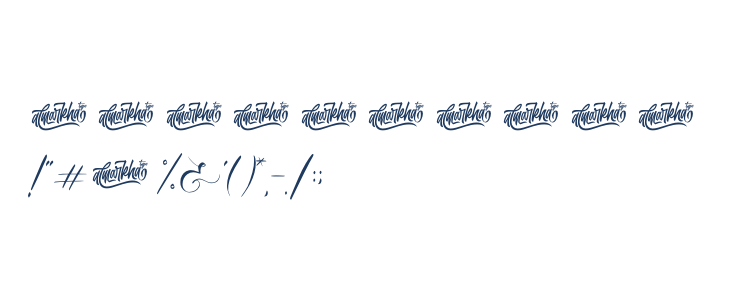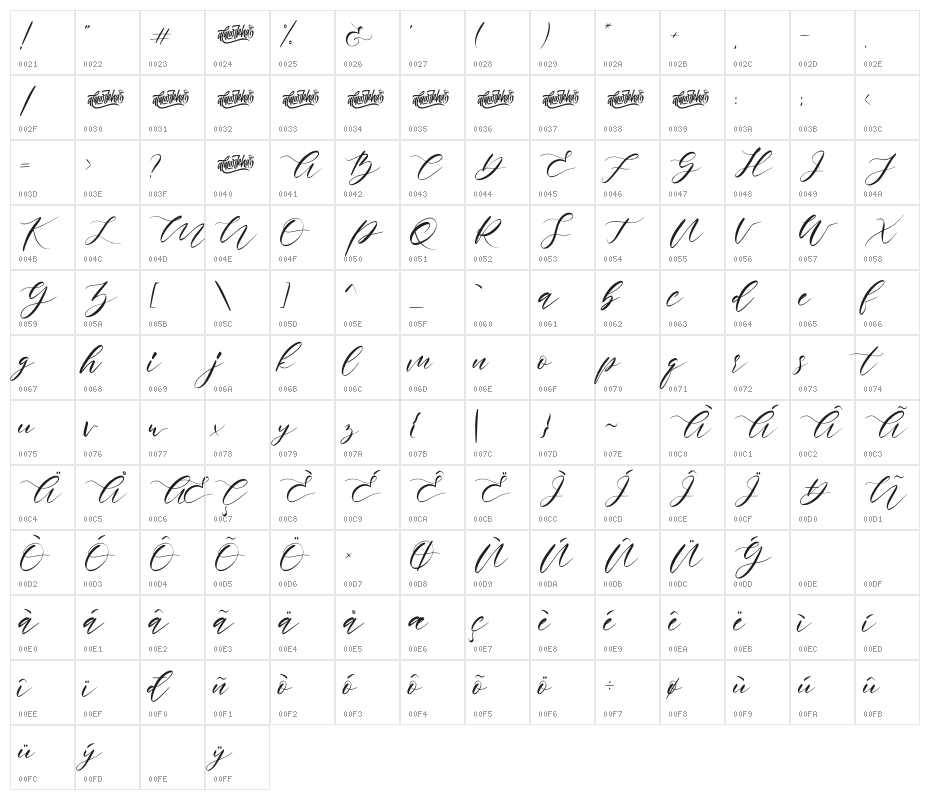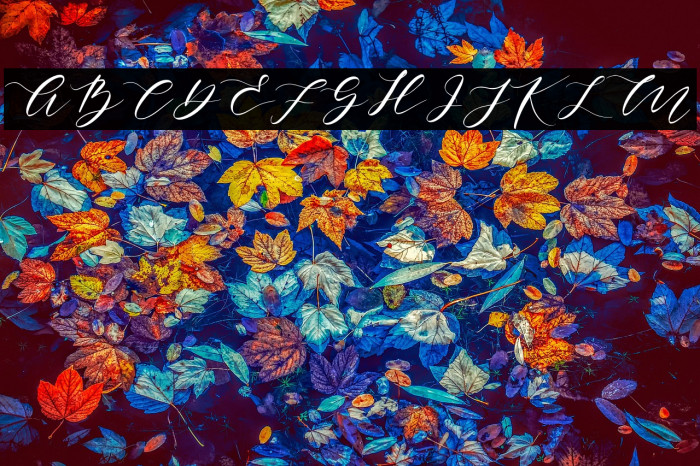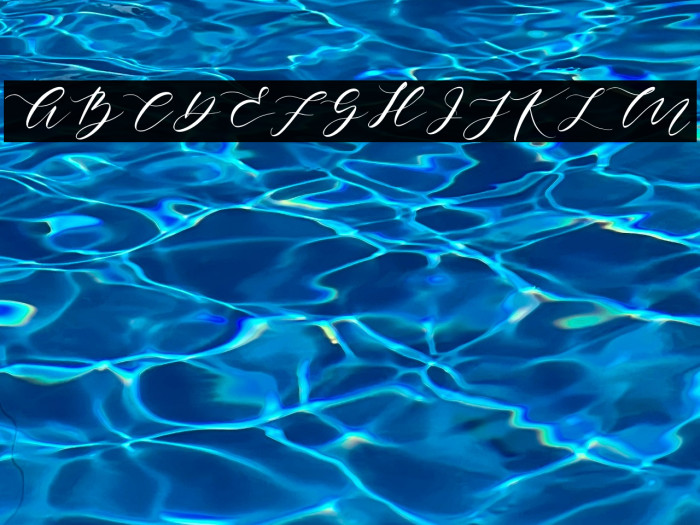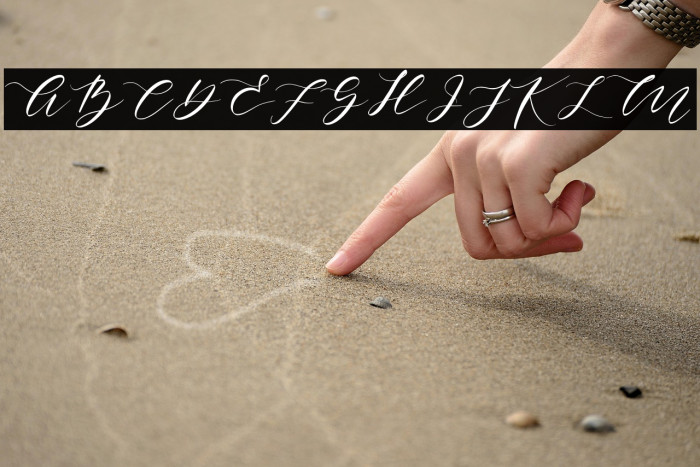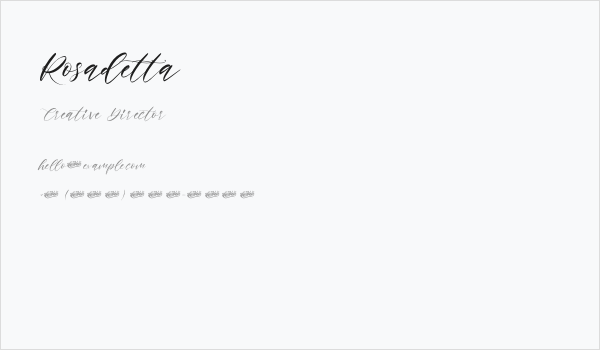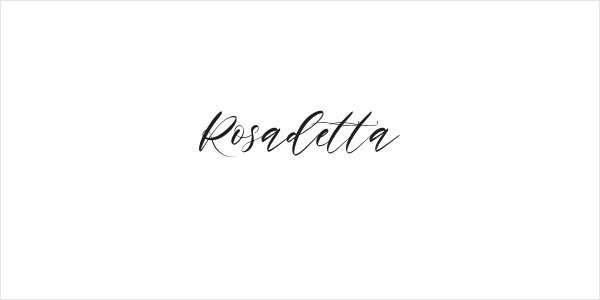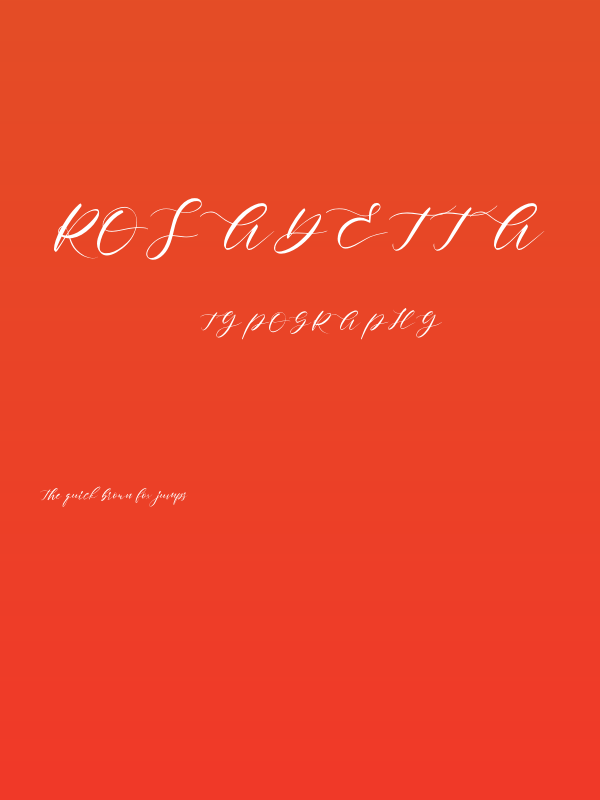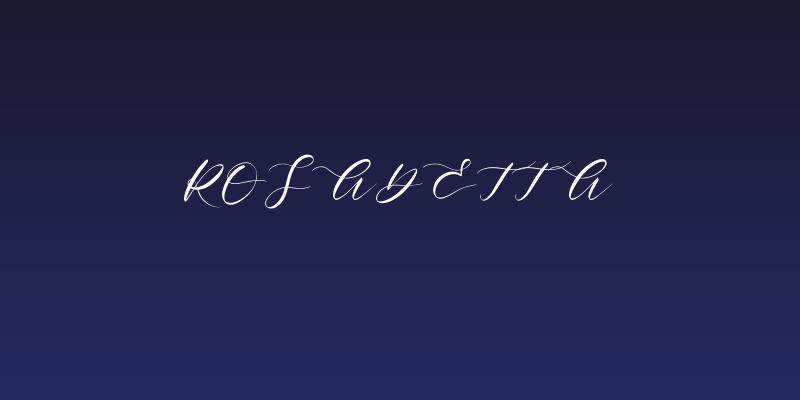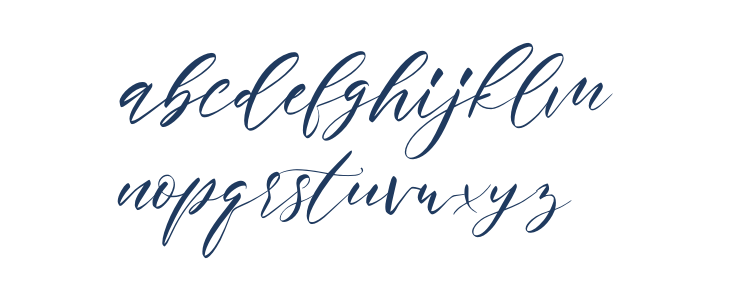
Rosadetta Font
Rosadetta Description
This font exudes elegance and sophistication with its fluid, cursive style. The letters are intricately designed with graceful loops and swirls, giving it a handwritten appearance. The uppercase letters are slightly more ornate, while the lowercase letters maintain a consistent flow. The font features a high contrast between thick and thin strokes, enhancing its decorative appeal. It is perfect for projects that require a touch of class and refinement, such as wedding invitations, luxury branding, or elegant signage. The special characters are equally ornate, maintaining the overall aesthetic of the font.
| Overall Style | Elegant, Decorative |
| Proposed Projects | Ideal for wedding invitations, luxury branding, and elegant signage. |